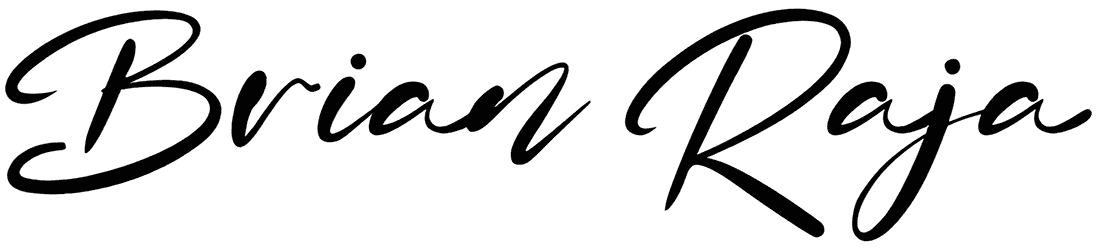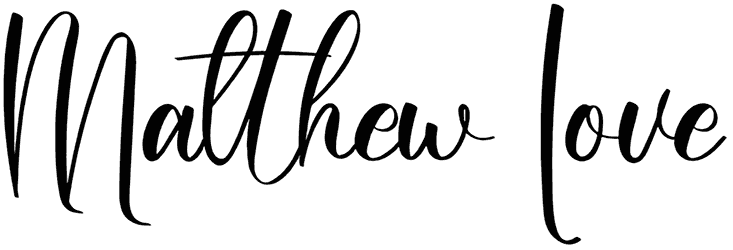
Delicia Font
The Delicia is a handwritten font with an elegant design and a romantic vibe. This script font’s letters have a playful form that plays with the viewers’ eyes and entertains them at first glance.
The Delicia has an attractive style with a curvy shape and thin-sharp tails. These features make this font practical for different cases such as magazines, logos, brochures, and postcards. Thus, if you need a stunning font for a special occasion, try this amazing font.